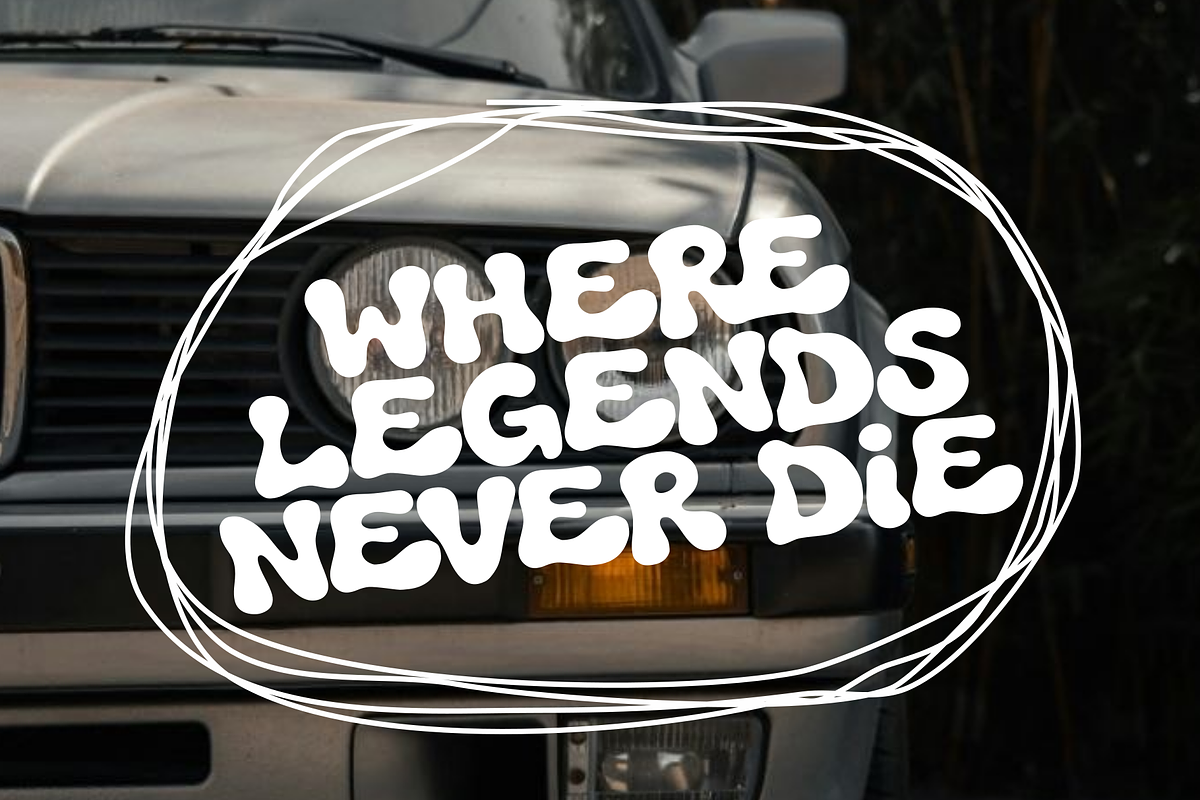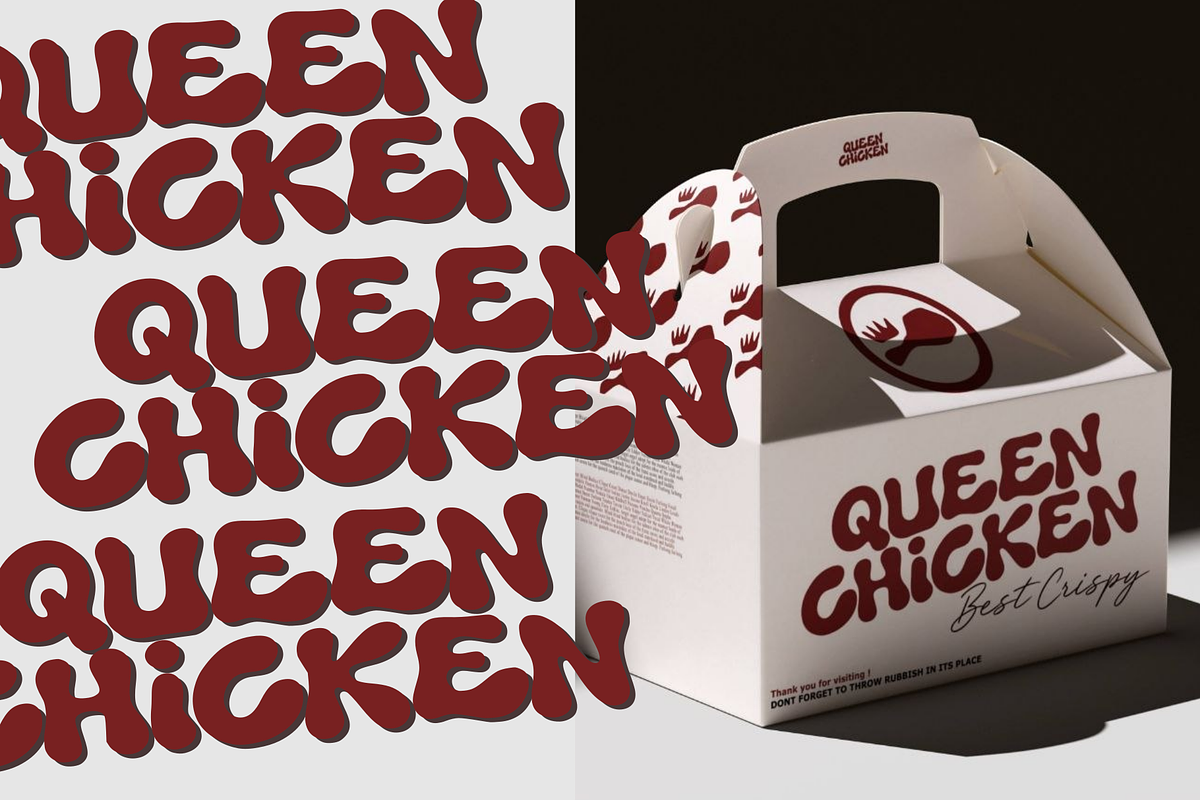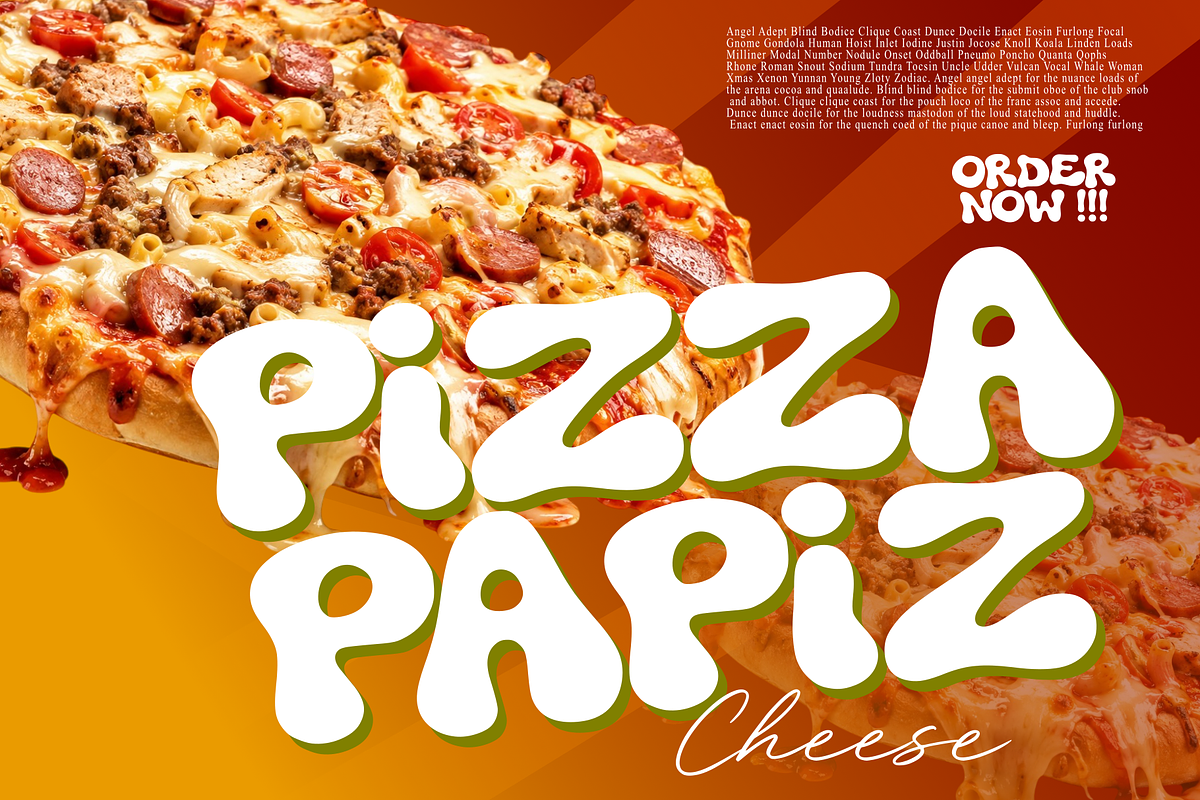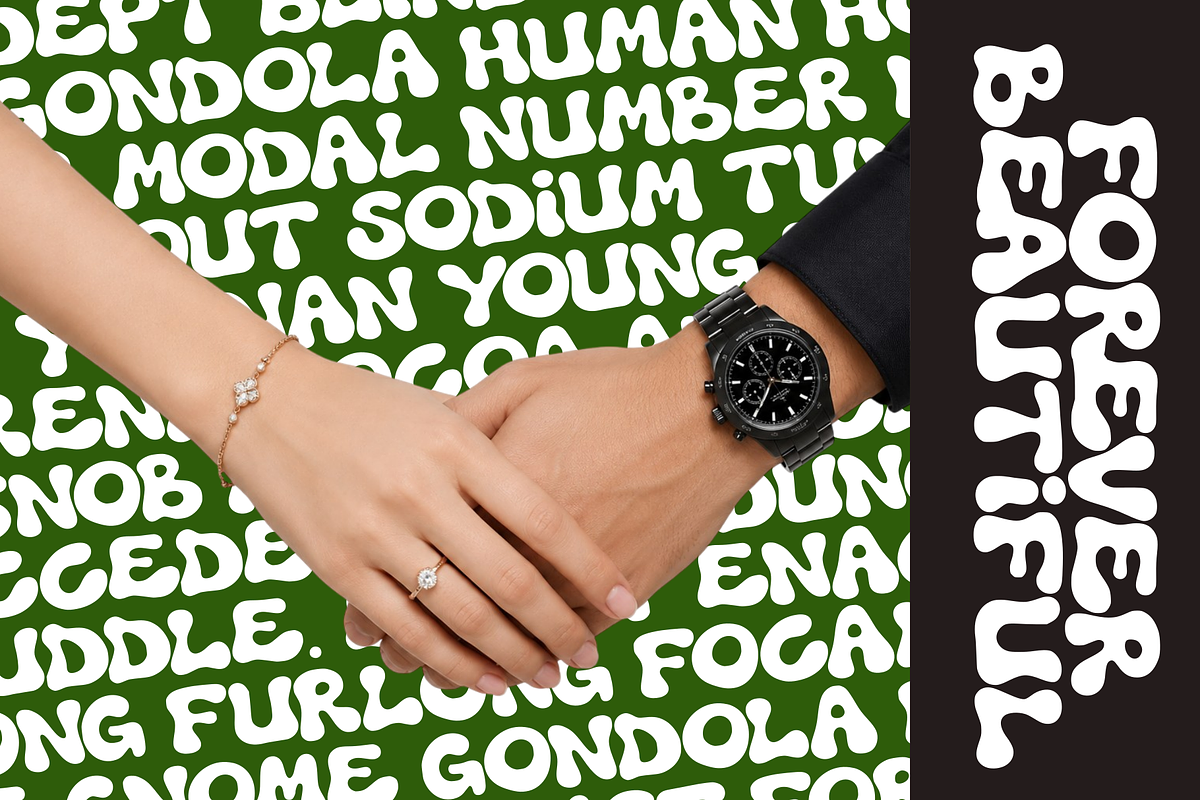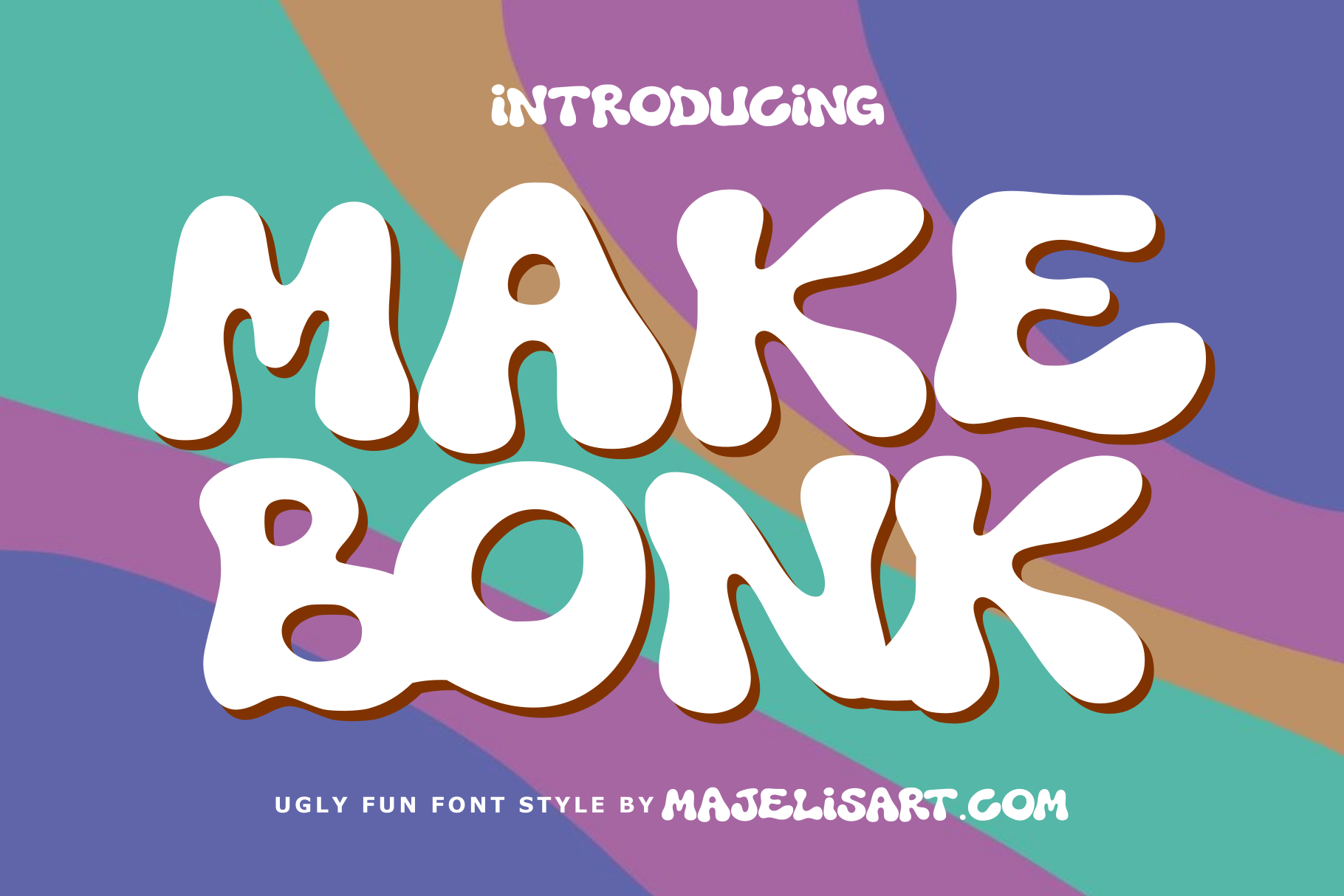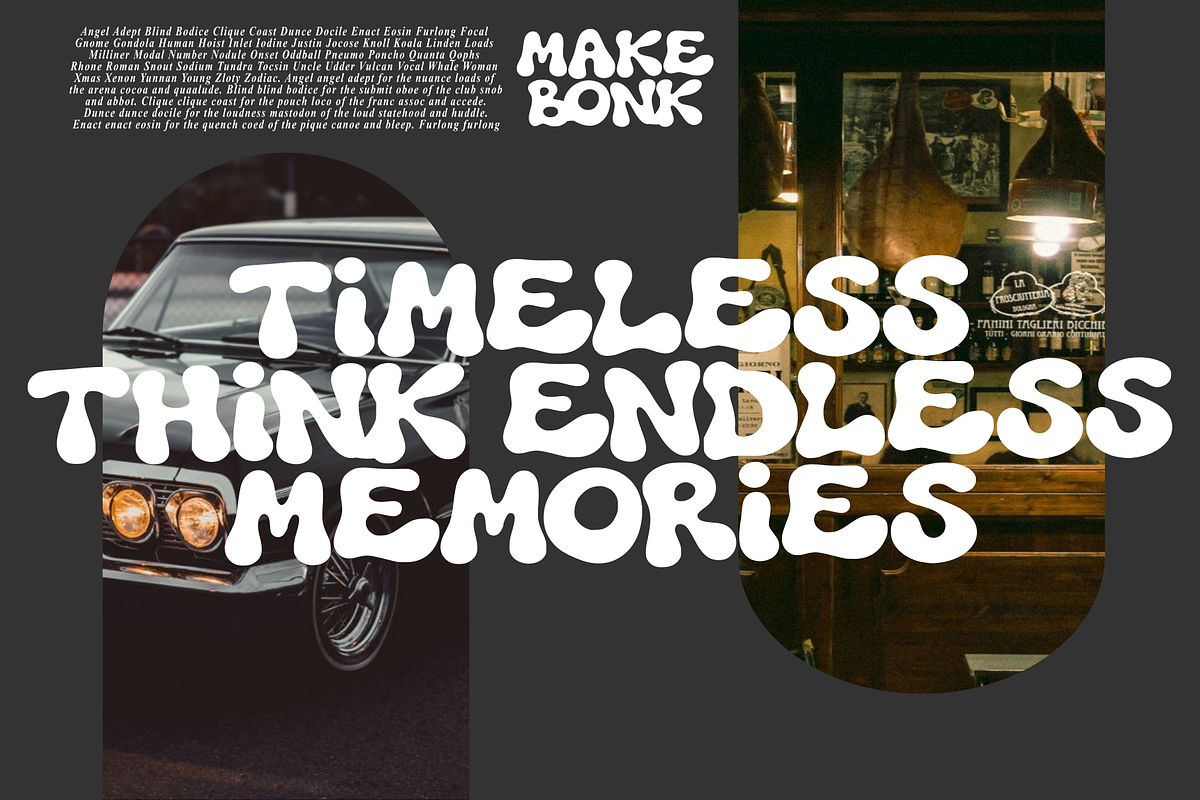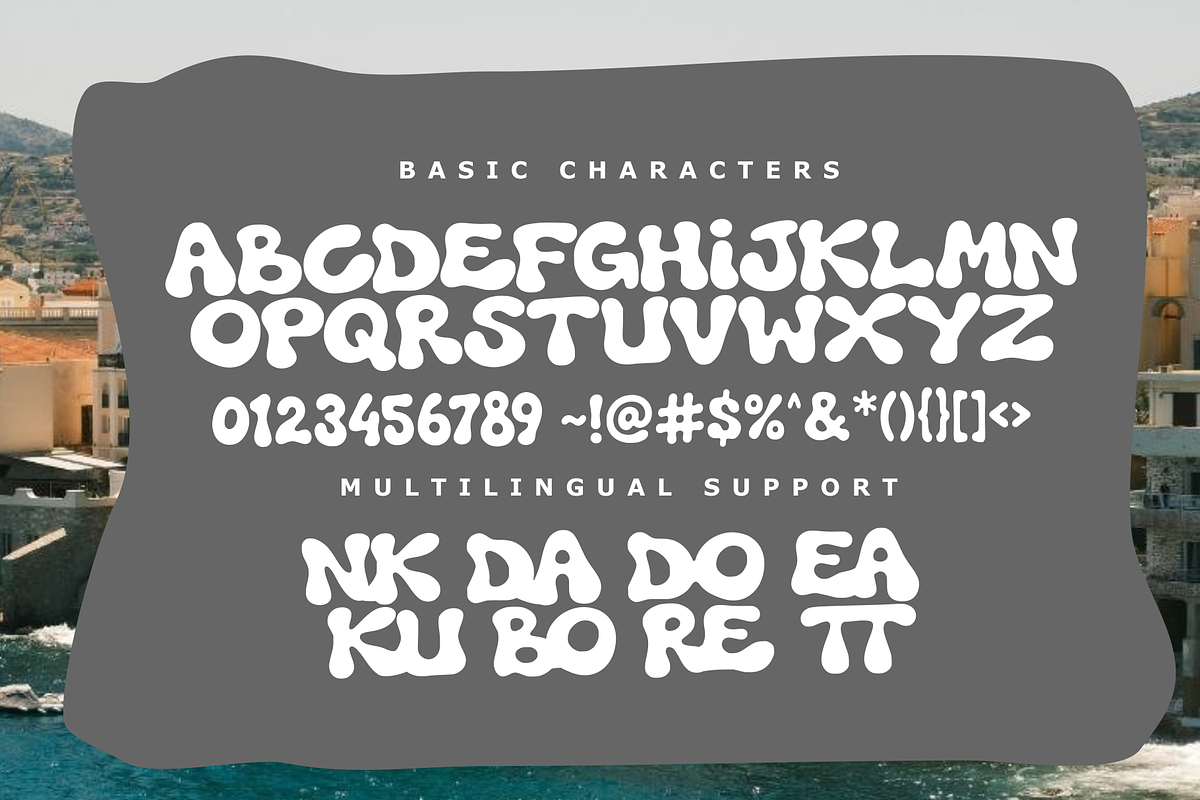
Makebonk - Ugly font
Makebonk — Ugly Fun Display Font Introducing Makebonk, a quirky and playful display typeface designed to bring a bold, fun, and unconventional personality to your designs. Featuring soft, chunky, irregular letterforms and exaggerated rounded shapes, Makebonk embraces an intentionally “ugly” aesthetic that feels energetic, humorous, and eye-catching. Its unusual proportions give the font a distinctive character that stands out from conventional display typefaces. Makebonk is perfect for creative projects that need a fun, youthful, weird, and memorable visual style.
Multilingual Support Makebonk includes multilingual support for projects using supported Latin-based characters, making it suitable for designers and brands creating work for an international audience.
Makebonk — Ugly, Fun, Weird, and Impossible to Ignore.